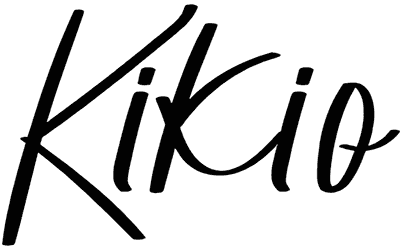
Kikio Font
Are you looking for a matching font with a personal aesthetic? Kikio is what you need. This handwritten font is an elaborate imitation of hand movements that looks like a signature at the end of a letter.
So, it’ll successfully convey emotions and can become a vital communication bridge between you and the audience. Keep this script font in the collection and use it whenever you want to create a lasting effect in the design of t-shirts, packaging, and album covers.